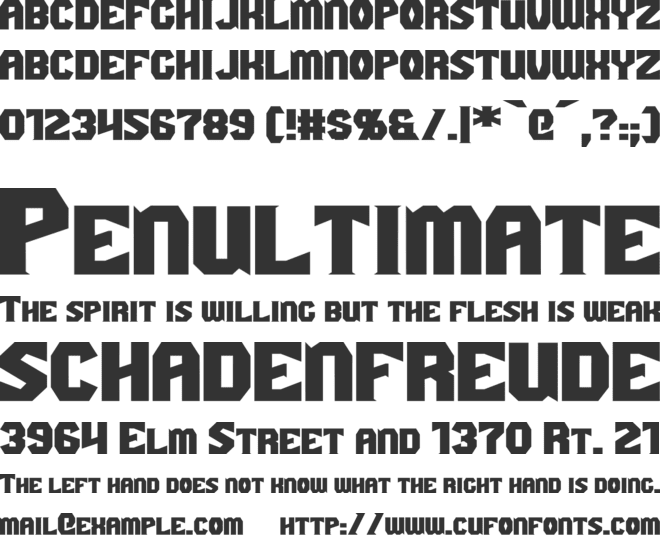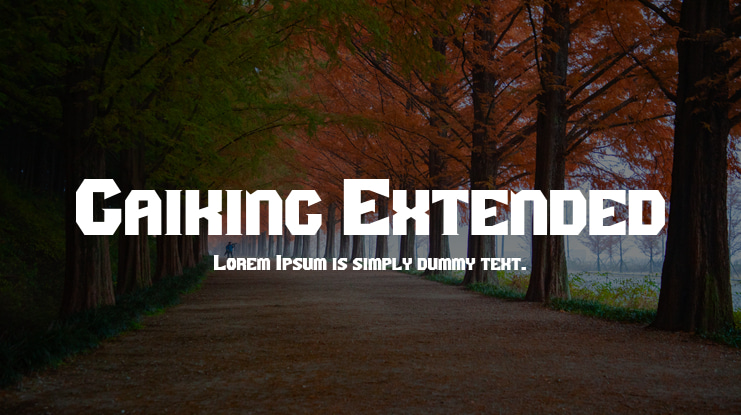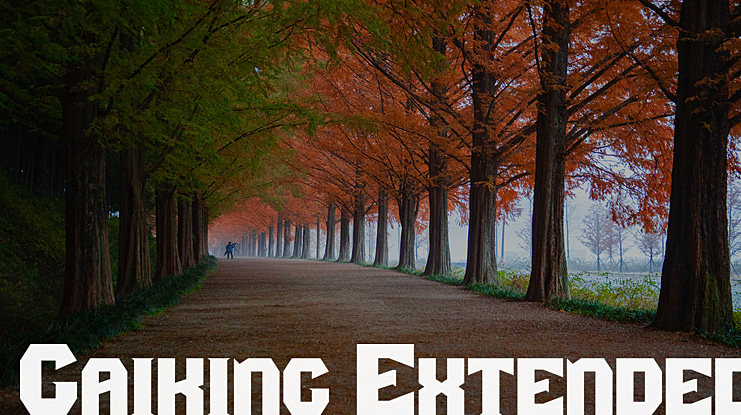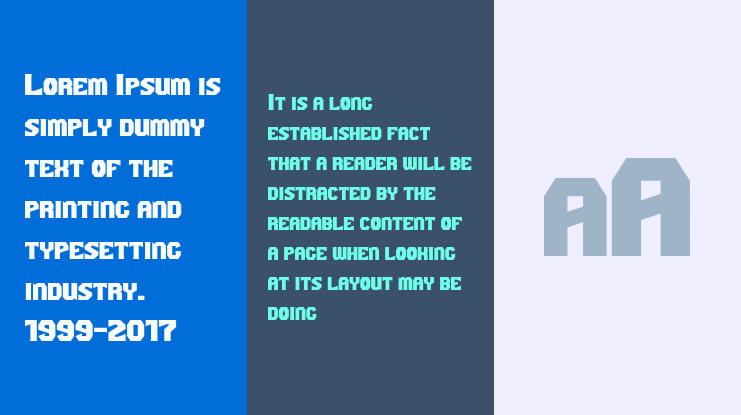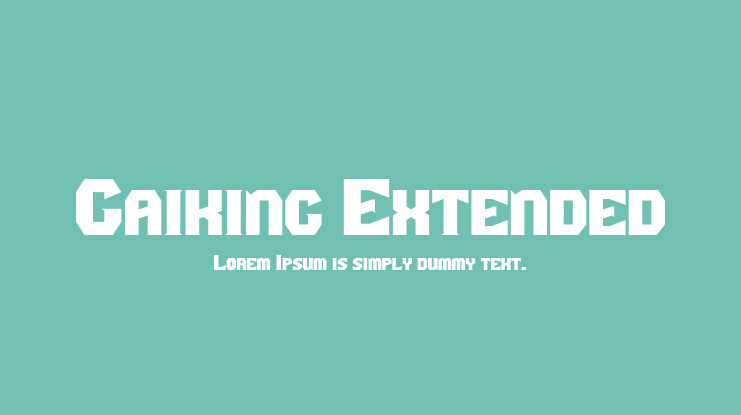
Gaiking Extended Font Family
Neale Davidson
Based on the logo of Mattel's infamous "Giant Robot" toyline, "Shogun Warriors". This font includes full alphabet, accent characters, and Euro. Includes italic and extended versions.